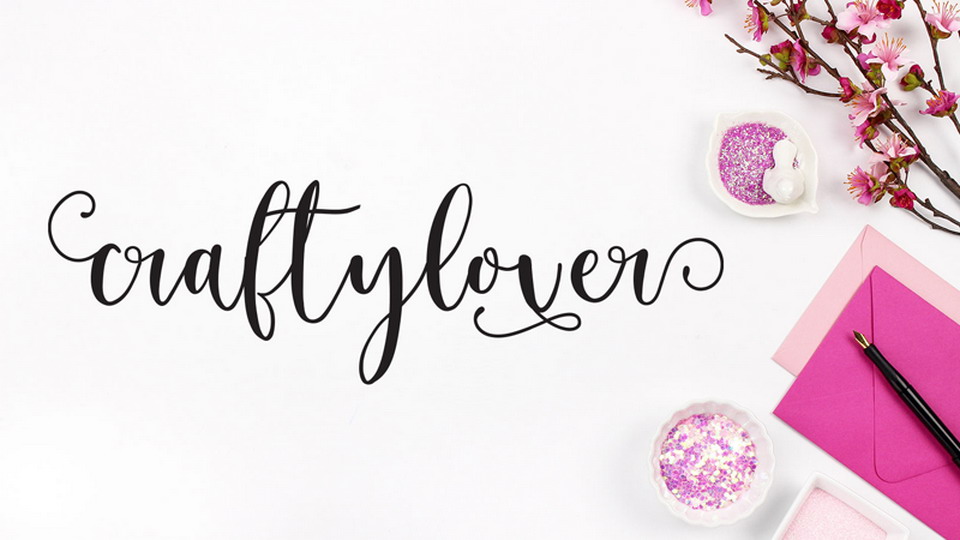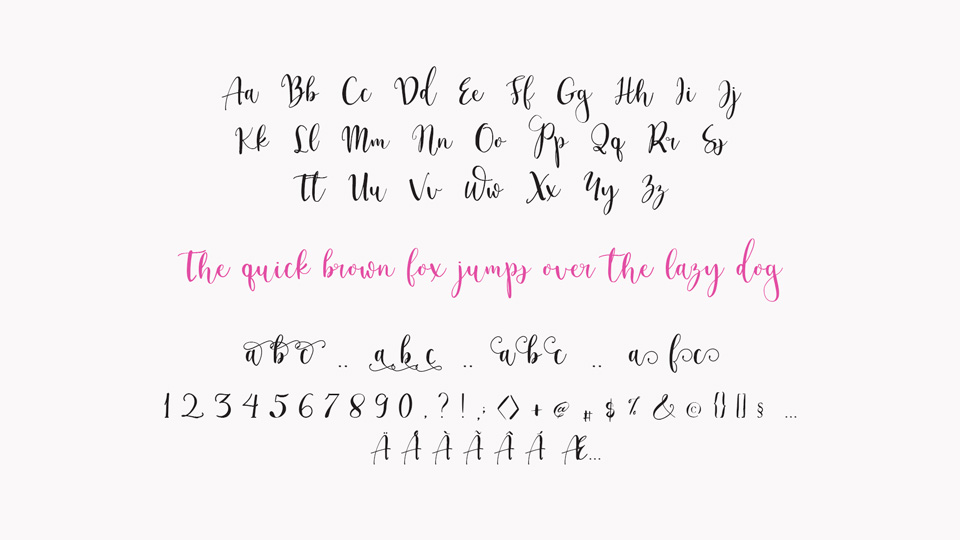
Craftylover is a beautiful modern smooth script, with 4 stylistic alternates/swashes, ready to beautify your design.
Craftylover font is suitable for modern design, wedding, feminine logo and branding, hand lettering envelopes, typography project, book or cover design, invitation, announcement, photobook, blogger and web design, scrapbooking and planner, moodboard typography, printable art, project life, poster, photography watermark and many more.